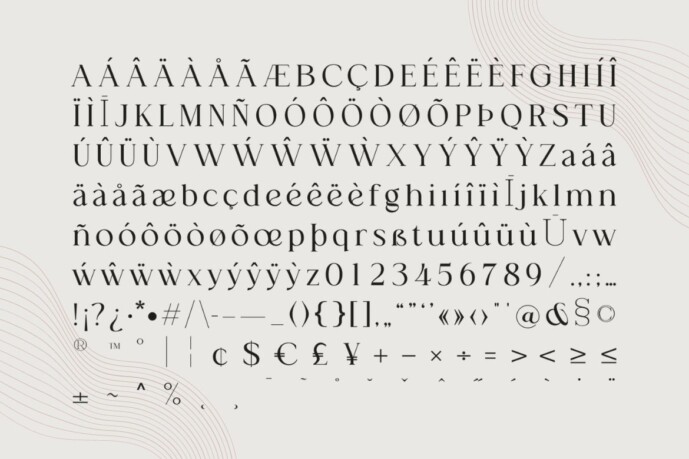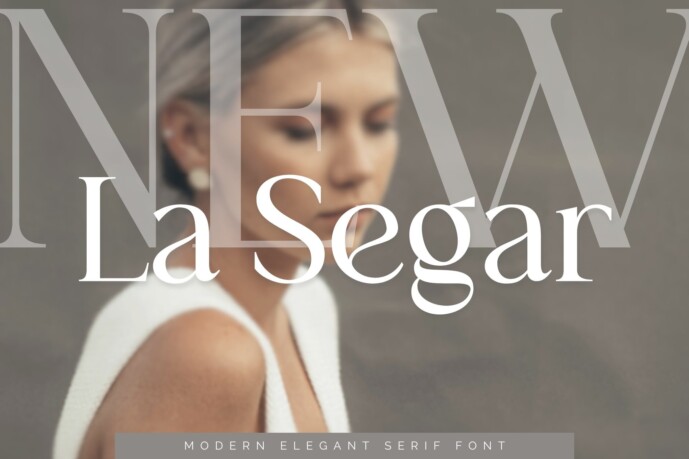
La Segar Font
Designer: goldeneyedsg
La Segar Font – Modern and elegant serif font, perfect for branding, logos, invitations, magazines, product packaging and more.